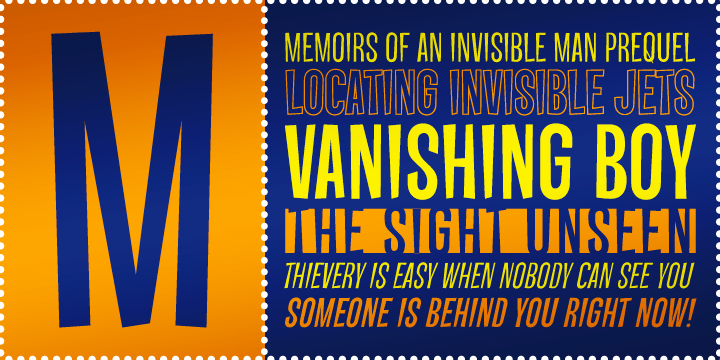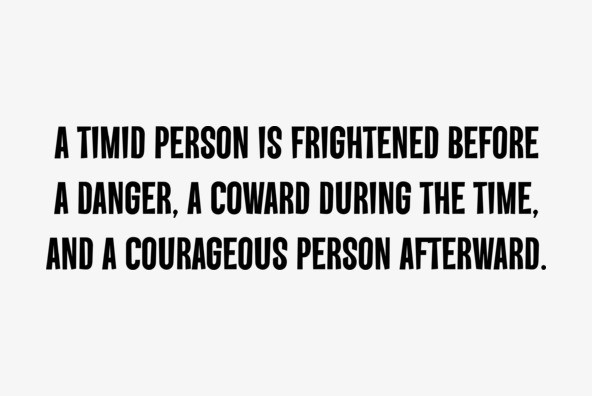
Vanishing Boy BTN
Font Family by Breaking The Norm
Vanishing Boy BTN is an offbeat display family inspired by the logotype from The Invisibles. Its quirky, comic-leaning personality gives it a lively retro edge, while the broad mix of styles makes it especially flexible for playful headline work. The family is well suited for posters, packaging, branding, editorial graphics, album art, and alternative-themed design that benefits from a fun, slightly unusual voice. With weights from Light to Bold plus Oblique, Outline, Reversed, and Reversed Lift styles, Vanishing Boy BTN offers a wide range of options for building distinctive display typography with character and energy.